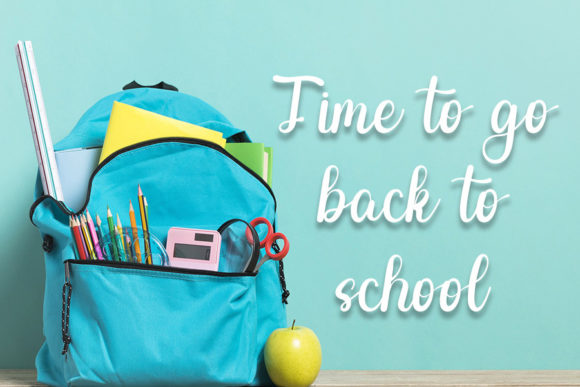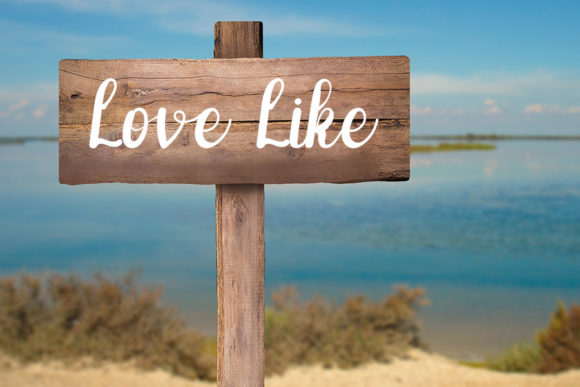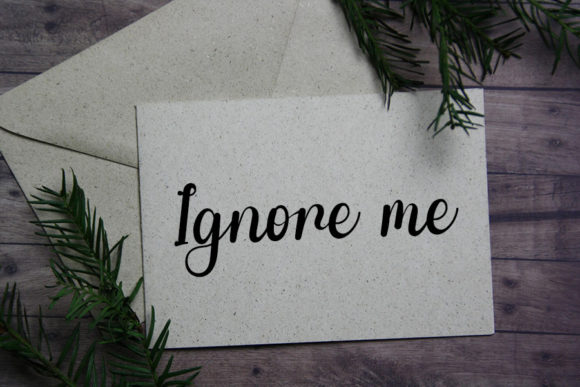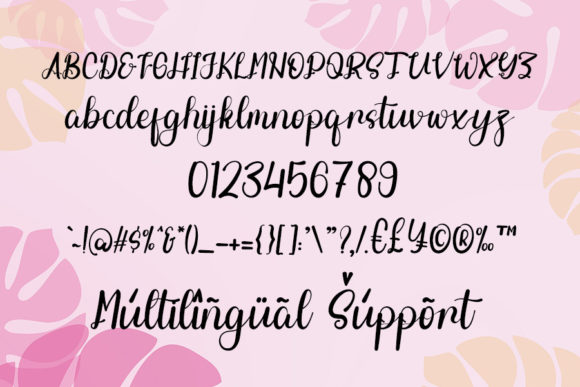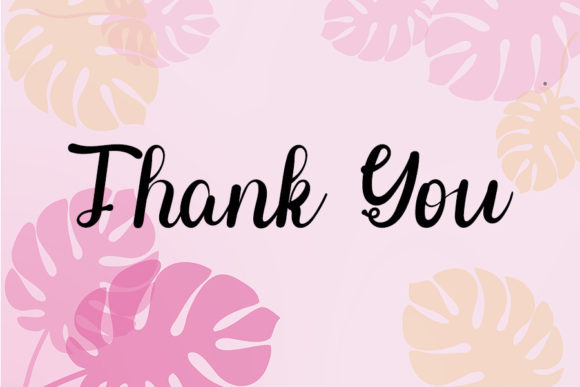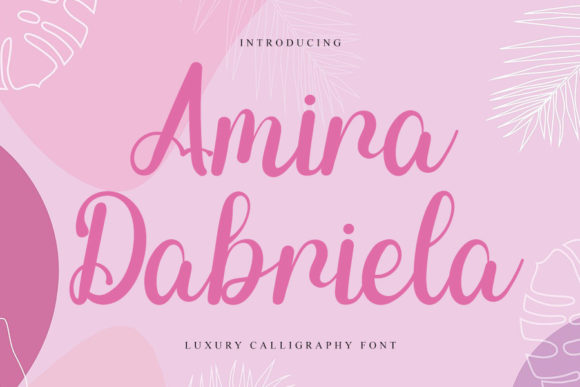
Introducing Amira Dabriela Font: Elevate Your Designs with Timeless Elegance
In the world of typography, few fonts manage to capture the essence of both modern style and classic elegance. Amira Dabriela Font is one such exceptional typeface that brings a contemporary atmosphere to the table while being deeply rooted in timeless classic calligraphy. Designed with impeccable form in mind, Amira Dabriela offers a balanced and varied approach to enhancing the beauty of your projects. Whether you’re a designer looking for a sophisticated touch or a crafter aiming to add a personal flair to your creations, Amira Dabriela is poised to become your go-to font.
The Inspiration Behind Amira Dabriela
Amira Dabriela’s design is inspired by the elegance of classic calligraphy, yet it boasts a modern twist that sets it apart from traditional typefaces. This font is not just a collection of letters; it’s a blend of artistry and functionality. The creator of Amira Dabriela aimed to produce a font that could seamlessly fit into various design projects, from elegant branding and advertising to personal crafts and DIY projects.
Key Features of Amira Dabriela Font
• Contemporary Atmosphere: Amira Dabriela brings a fresh and modern vibe to your designs without losing the charm of traditional calligraphy.
• Impeccable Form: Each letter is crafted with precision, ensuring that the font maintains a high level of readability and aesthetic appeal.
• Balanced and Varied: The font offers a range of styles and weights, allowing for flexibility and creativity in your design work.
• Handwritten with Style: Amira Dabriela’s handwritten nature gives it a personal and unique touch, making your projects stand out.
Applications of Amira Dabriela Font
The versatility of Amira Dabriela Font makes it suitable for a wide array of applications. Here are some of the areas where this font truly shines:
• Branding and Logo Design: Create memorable and elegant brand identities with Amira Dabriela.
• Stationery and Invitations: Add a touch of sophistication to your wedding invitations, greeting cards, and personal stationery.
• Digital and Print Advertising: Stand out in the crowded advertising space with a font that exudes both modernity and class.
• Crafting and DIY Projects: Whether you’re making personalized gifts or crafting unique decorations, Amira Dabriela can add that extra special touch.
Why Choose Amira Dabriela?
In a sea of fonts, Amira Dabriela stands out for several reasons:
• Unique yet Readable: It strikes the perfect balance between uniqueness and readability.
• Versatile: Suitable for both digital platforms and print materials.
• Elegant: Adds a touch of sophistication to any project.
• Easy to Use: Designed to be user-friendly, making it accessible for designers and crafters alike.
Amira Dabriela Font is more than just a typeface; it’s a design companion that can elevate your projects to new heights of elegance and sophistication. With its roots in classic calligraphy and a strong contemporary appeal, it offers the best of both worlds. Whether you’re working on professional designs or personal crafts, Amira Dabriela invites you to explore new possibilities in typography and design. Discover the difference that Amira Dabriela can make in your creative journey.